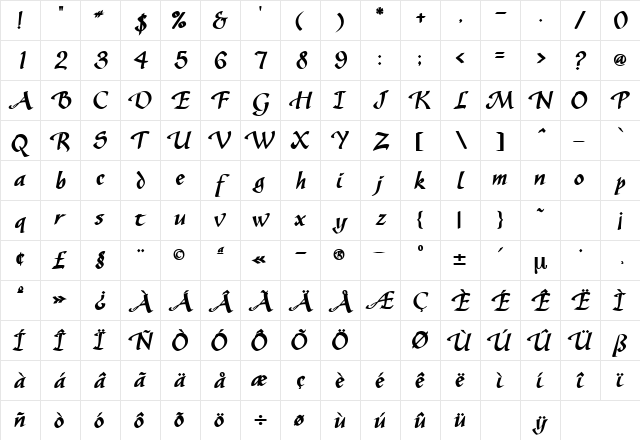
Complete SonyannaScriptSSi Bold glyph index. Displaying only characters natively supported by SonyannaScriptSSi Bold font.
SonyannaScriptSSi flows with the natural rhythm of handwritten lettering, making it ideal for designs that call for warmth and personal expression. Its bold stroke weight gives it real presence on the page.
Font Pairing: Combine SonyannaScriptSSi with a simple geometric sans for maximum contrast - the tension between flowing curves and clean structure is a classic typographic pairing.
Pro Tip: Use SonyannaScriptSSi for short runs of text - names, titles, or taglines. Extended body copy in script faces tires the eye quickly.